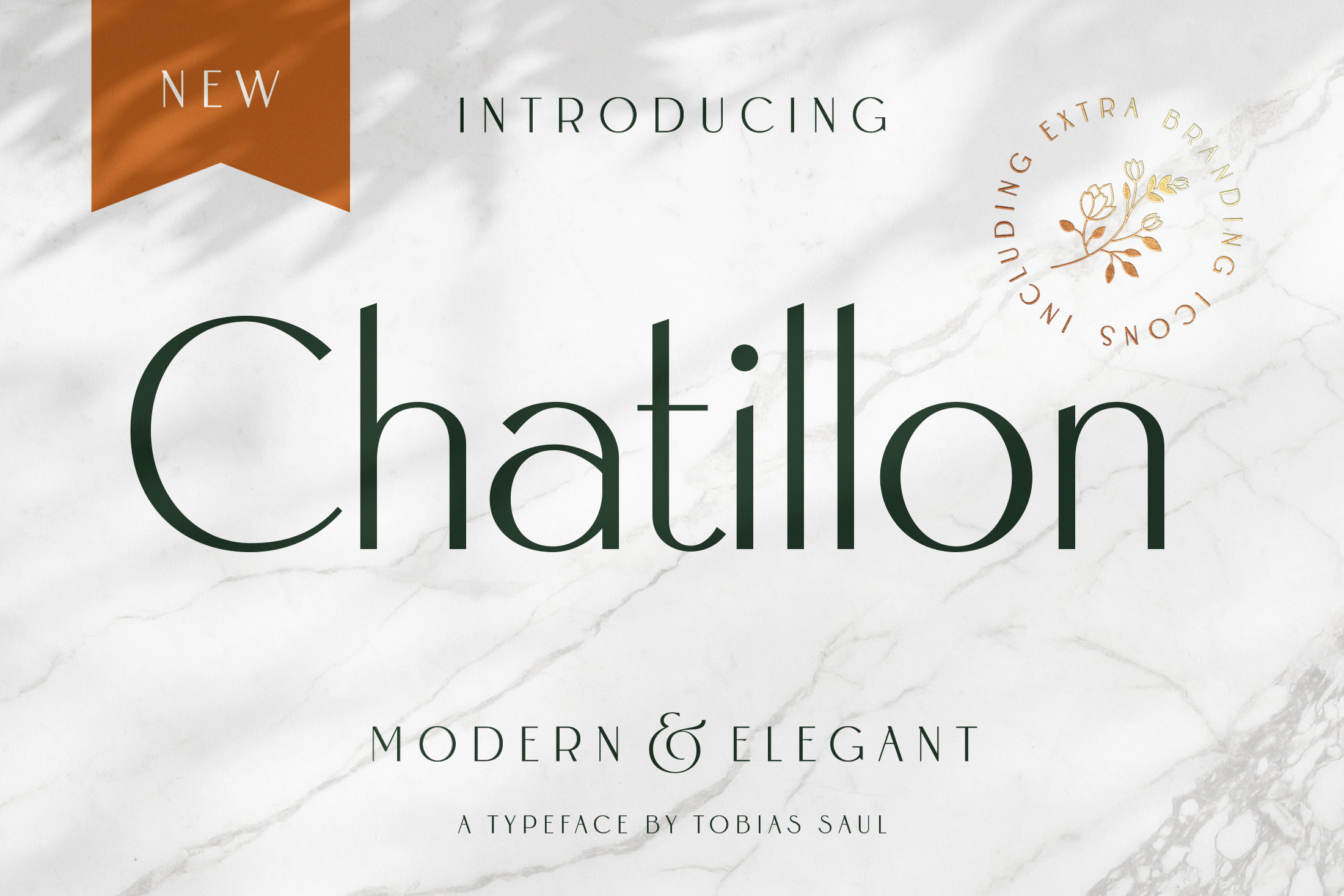
Chatillon is an elegant sans serif font with a super exquisite appearance. Its clean shapes and remarkable details make it perfect for logos, branding, magazines, headlines, websites, packaging, wedding cards, and much more! Besides alternate characters and standard ligatures, Chatillon comes with a set of 20 beautiful vector icons – perfect for logo design! Finally, I additionally include all logo templates used in this presentation to speed up your creation process.